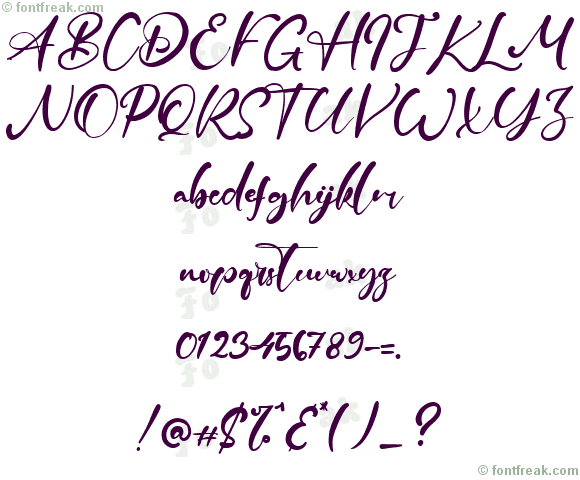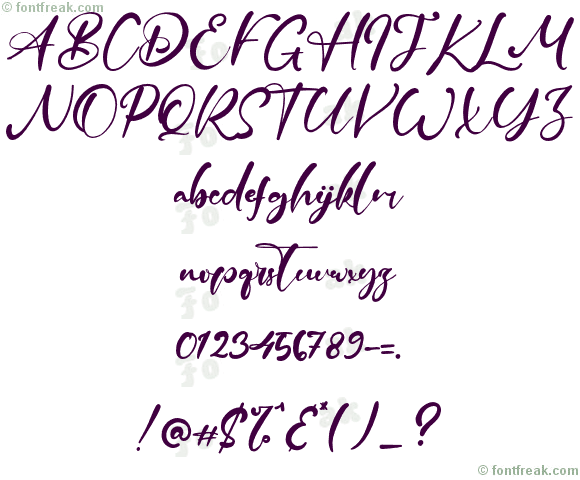
Howell Rode
HowellRode
Howell Rode by Kong Font is an elegant script typeface that exudes sophistication and charm. This font features a graceful flow, characterized by its smooth cursive strokes and a moderate contrast in stroke weight that enhances its visual appeal. The letters are well-spaced, allowing for clarity while maintaining a fluid connection between characters. The decorative elements, such as the gentle loops and flourishes, lend an artistic touch, making it perfect for various creative applications.
The Howell Rode font is particularly well-suited for wedding invitations, where its romantic style can beautifully convey heartfelt sentiments. Additionally, it works wonderfully for branding projects, especially for boutique shops or cafes looking to establish a warm and inviting identity. Movie posters featuring a vintage or whimsical theme can also benefit from the font’s distinctive personality. In the realm of digital content, it can elevate social media graphics, adding a personal touch that resonates with audiences. Graphic designers, small business owners, and content creators will find Howell Rode to be a versatile addition to their font library.
What sets the Howell Rode font apart is its ability to blend elegance with readability, making it a favorite for both formal and casual projects. The ease with which it can be incorporated into various design contexts, coupled with its freeware license, allows users to explore their creativity without constraints. For anyone looking to enhance their design repertoire, the Howell Rode font free download is an opportunity not to be missed. This font’s unique characteristics and versatility make it a standout choice for anyone looking to make a lasting impression with their typography.